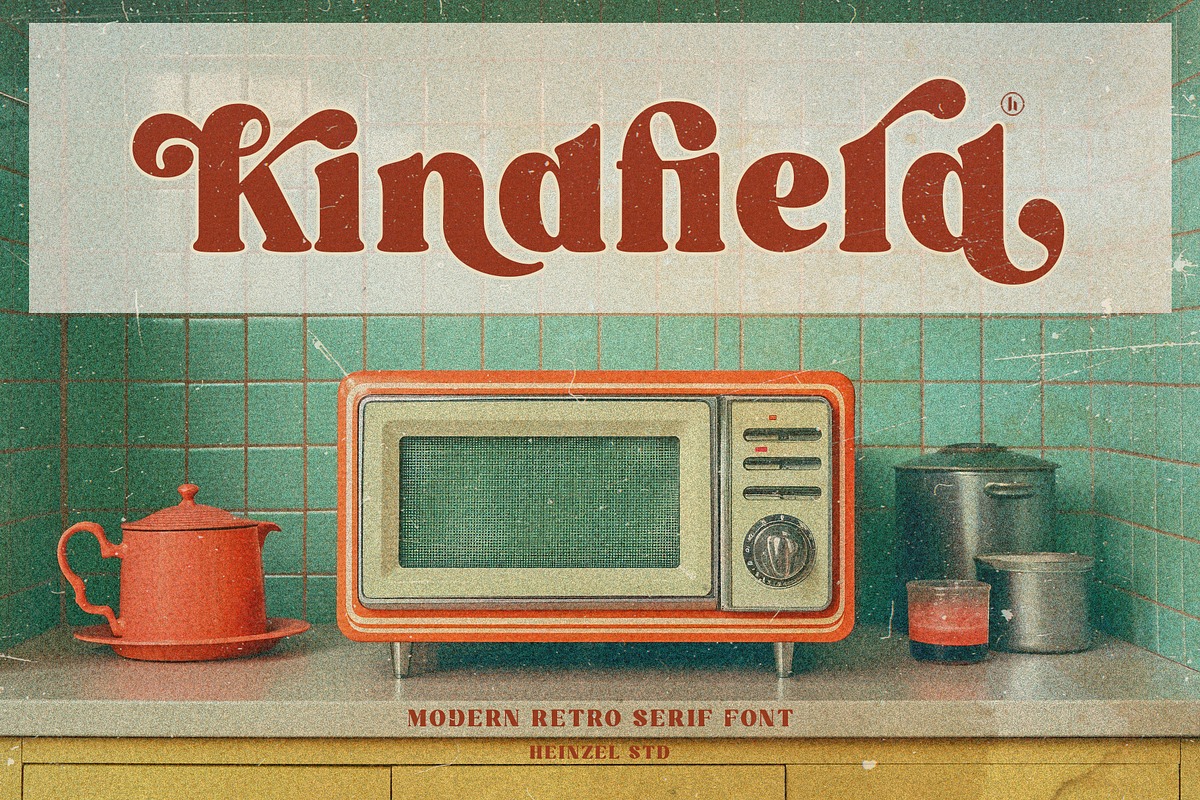
Kindfield Font
Kindfield Font is a retro serif font designed to capture classic charm, nostalgic character, and strong visual personality through carefully crafted typography. Inspired by vintage print design and traditional serif lettering, Kindfield blends old-style elegance with modern usability. This font is ideal for designers who want to create warm, expressive designs with a timeless retro feel while maintaining professional readability.
As a retro serif display font, Kindfield performs exceptionally well in large sizes where its distinctive serifs and balanced letterforms stand out. The font is suitable for branding, logos, headlines, posters, packaging, editorial layouts, labels, and promotional materials. Kindfield adds depth and character to typography, making designs feel authentic, crafted, and visually engaging.
✨ About Kindfield Font
Kindfield is built with a strong focus on vintage aesthetics and typographic structure.
Each character is carefully shaped to reflect classic serif traditions while preserving clarity and balance.
The font combines bold strokes with refined details, resulting in a serif typeface that feels nostalgic yet polished.
This retro serif font is designed to evoke warmth and familiarity.
It allows designers to create typography that feels personal and timeless rather than overly modern or minimal.
🎯 Font Style and Key Features
Kindfield follows a retro-inspired serif design philosophy.
Its letterforms emphasize contrast, strong serifs, and harmonious proportions.
This font is ideal for:
• Logo design
• Retro and vintage branding
• Headlines and titles
• Posters and flyers
• Packaging and labels
• Editorial layouts
Its structure helps establish strong typographic hierarchy and visual rhythm.
🖋️ Branding and Logo Design
As a serif font for branding, Kindfield delivers a confident and recognizable visual identity.
It communicates craftsmanship, heritage, and authenticity.
Kindfield works especially well for:
• Retro-inspired brands
• Coffee shops and restaurants
• Craft and handmade products
• Fashion and lifestyle labels
• Creative studios and personal brands
Logos created with Kindfield feel bold, friendly, and enduring.
📖 Editorial and Publishing Use
Kindfield performs beautifully in editorial and publishing contexts.
Its classic serif structure enhances readability while adding visual interest.
Common editorial uses include:
• Magazine headlines
• Book covers
• Editorial titles
• Quotes and pull text
• Print publications
The font adds character to text without compromising legibility.
💻 Web and Digital Applications
Kindfield adapts well to modern digital environments.
Its serif details remain clear and readable across different screen sizes.
Web use cases include:
• Website headers
• Landing page titles
• Blog headings
• Portfolio websites
• Brand storytelling pages
The font maintains its retro charm on desktop, tablet, and mobile devices.
🖨️ Print Design Applications
Kindfield delivers excellent results in print.
Its strong serifs and balanced spacing ensure clean reproduction.
Ideal print uses include:
• Posters
• Packaging
• Labels and stickers
• Menus
• Business cards
• Event materials
The retro aesthetic enhances printed designs with texture and personality.
⭐ Why Choose Kindfield?
Kindfield is designed for designers who want expressive and nostalgic typography.
It blends retro inspiration with modern design requirements.
Key advantages:
• Retro serif display style
• Strong visual personality
• High readability at display sizes
• Easy to pair with sans-serif fonts
• Suitable for web and print projects
This makes Kindfield a valuable addition to any retro or editorial font collection.
🔤 Typography Performance and Versatility
Kindfield supports consistent typography workflows.
Its balanced proportions reduce the need for excessive kerning or adjustment.
The font integrates smoothly into branding systems and layout designs.
It provides a stable typographic foundation while adding distinctive character.
✅ Conclusion
Kindfield is a retro serif font created for branding, editorial, and creative design projects.
Its vintage-inspired letterforms, strong visual presence, and versatile usability allow designers to craft typography that feels warm, authentic, and timeless.
Whether used for logos, packaging, digital content, or print materials, Kindfield delivers classic charm and professional quality that elevate visual communication.